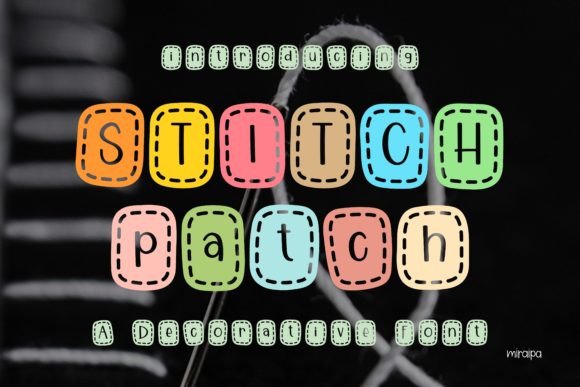
Are you looking for the best font for label design? Look no further than Stitch Patch Font! Created by the talented designer, miraipa, this decorative font is exactly what you need to take your DIY projects to the next level.
Stitch Patch Font boasts a playful and friendly style that will make your labels stand out from the rest. Its unique design will add a touch of whimsy to any project, making it the perfect choice for those looking to add a personal and creative touch to their work.
With Stitch Patch Font in your font library, you'll have access to a world of creative possibilities. Its versatility means that it can be used for a wide variety of projects, from labeling homemade jams and preserves to adding a special touch to scrapbooking pages. And with its eye-catching and captivating design, you can be sure that your labels will be noticed and remembered.